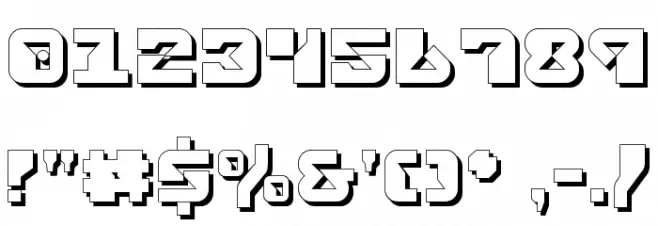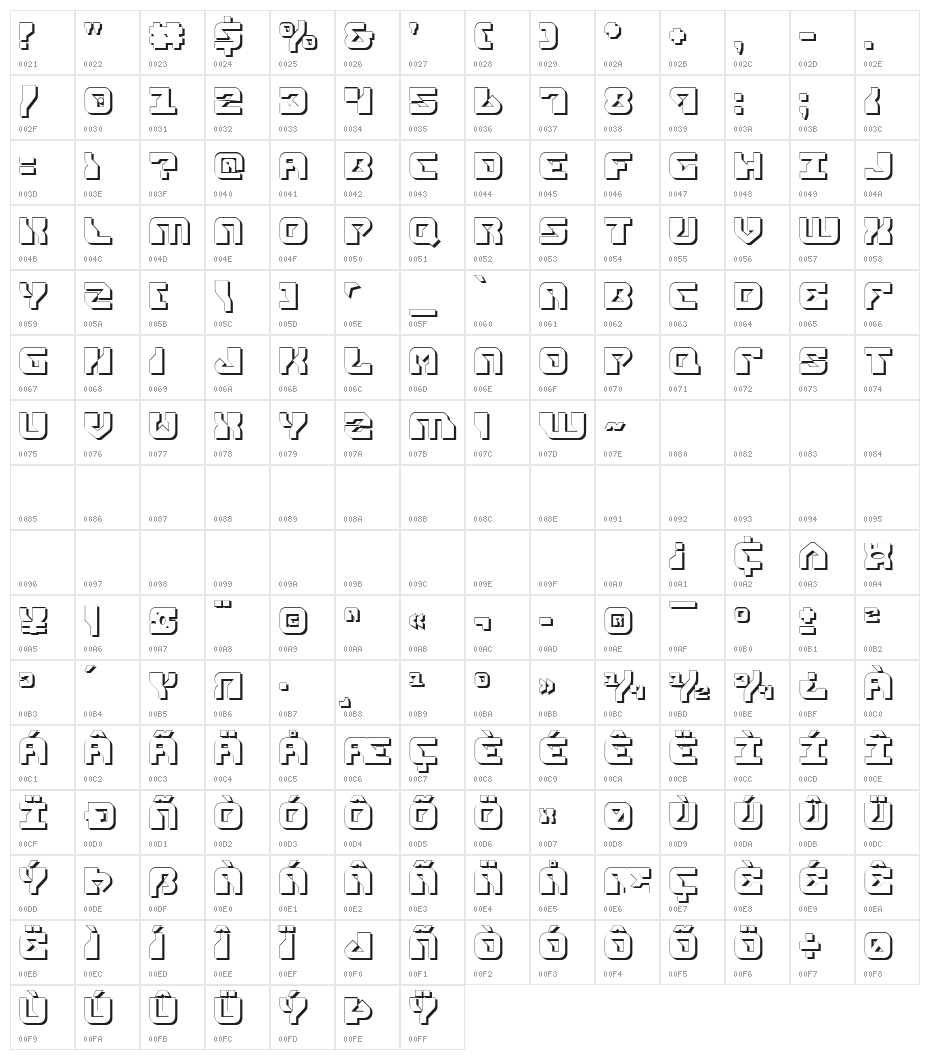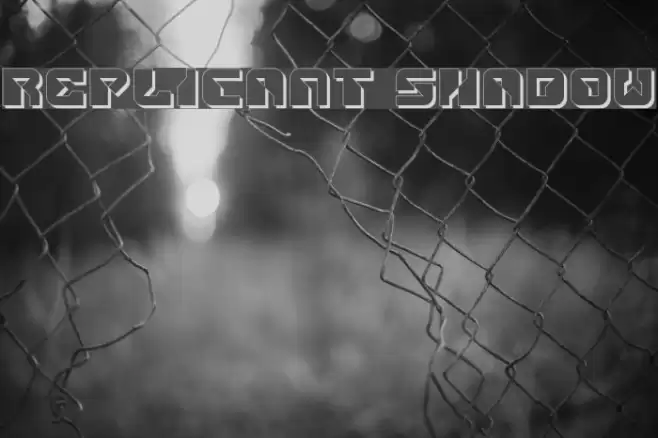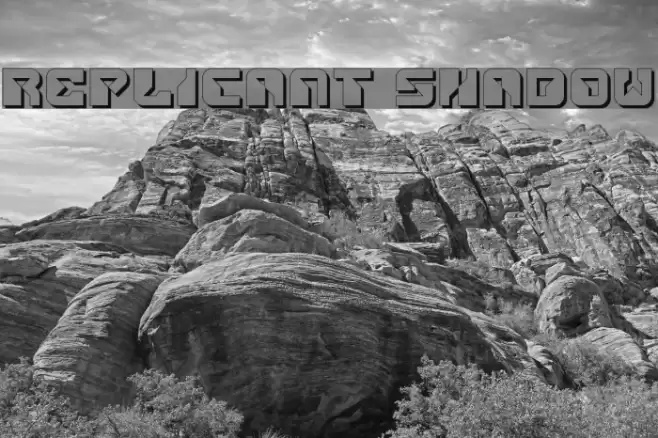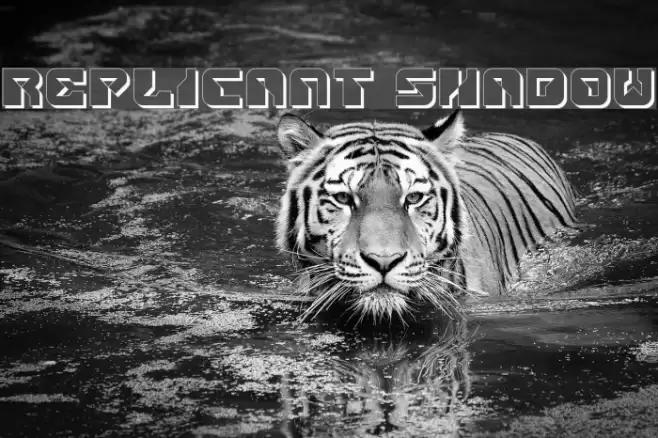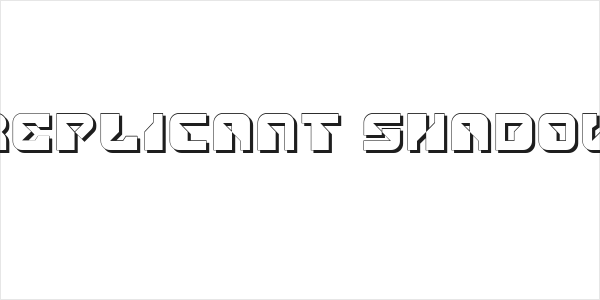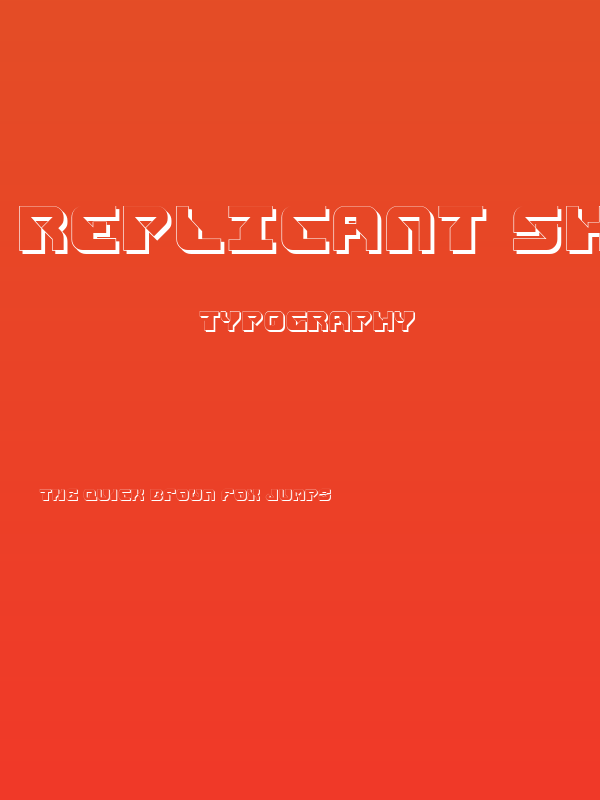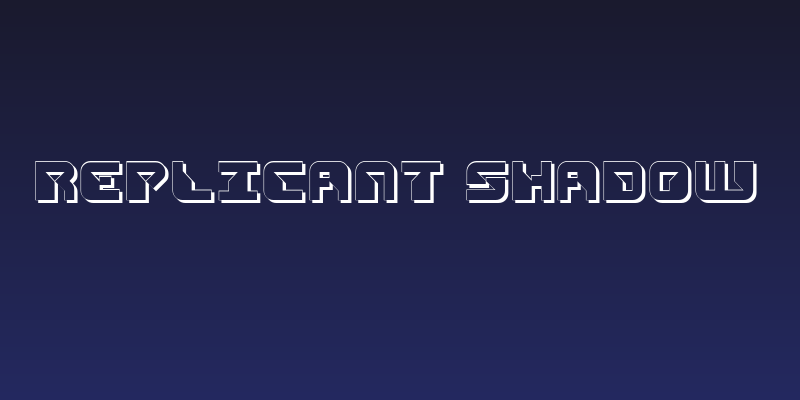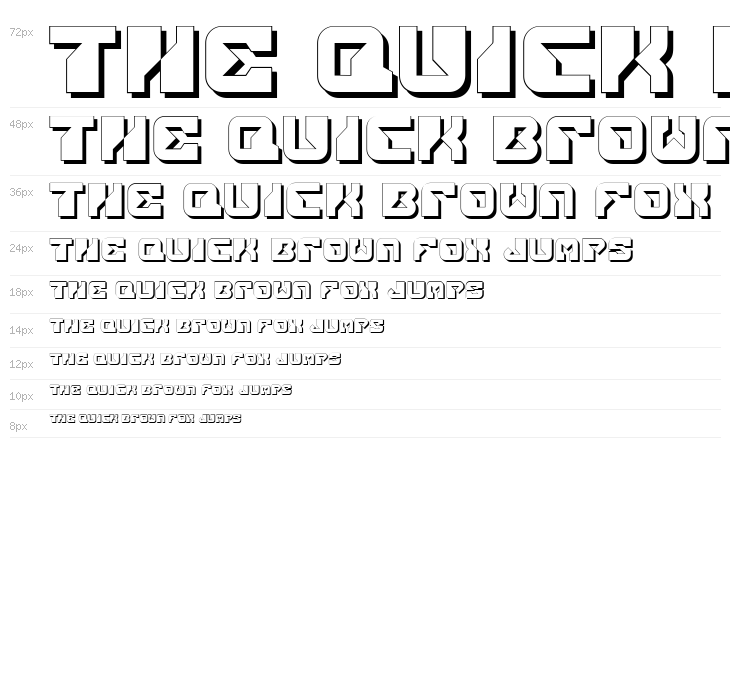
Replicant Shadow Font
Replicant Shadow Description
This font features a bold, futuristic design with a three-dimensional shadow effect that gives each character a sense of depth and dynamism. The geometric shapes and sharp angles create a strong, impactful presence, making it ideal for attention-grabbing headlines and titles. The uppercase and lowercase letters maintain a consistent style, with the shadow effect enhancing the overall aesthetic. The numerals and special characters are designed to match the boldness and style of the alphabet, ensuring a cohesive look across all text elements. The font's unique style makes it suitable for modern and tech-oriented projects, where a bold statement is desired.
| Overall Style | Futuristic, Modern |
| Proposed Projects | Ideal for tech branding, video game titles, futuristic posters, and sci-fi themed designs. |